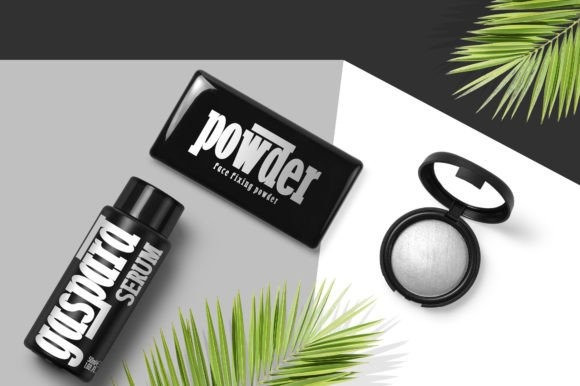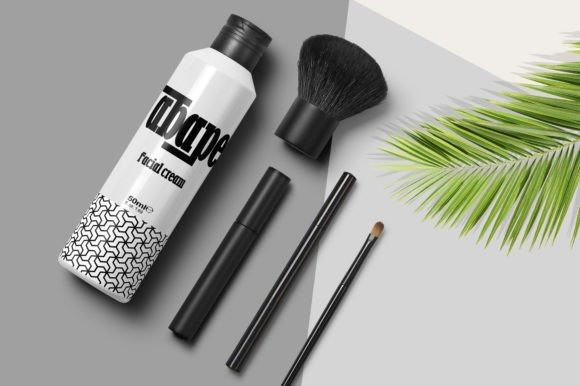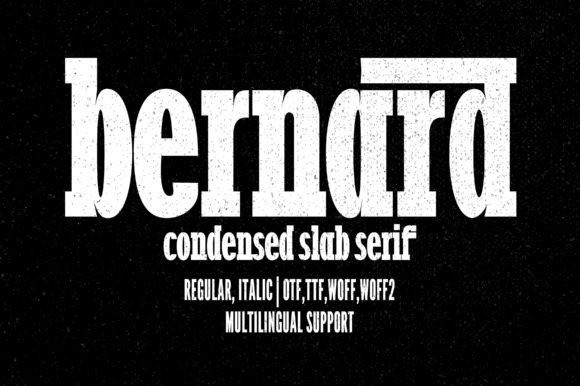
Bernard Font
Bernard Font is a wonderful compressed and condensed slab serif typeface. It can be used in a wide range of themes whether vintage or modern. This font will give a huge value to your creations. It can be used in packaging design, alcohol drinks packaging, label design, posters, social posts, and many more. Add it to your most creative ideas and notice how it makes them come alive!